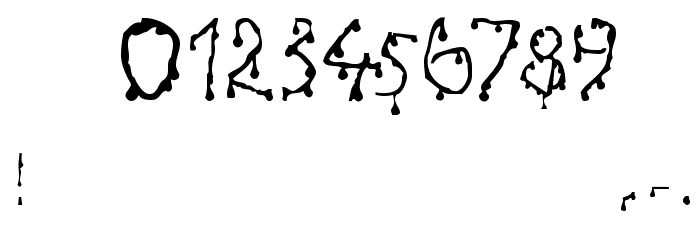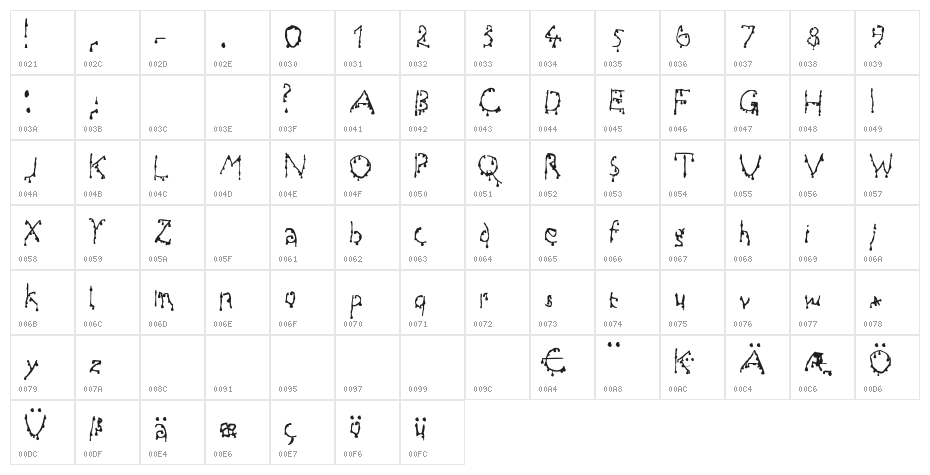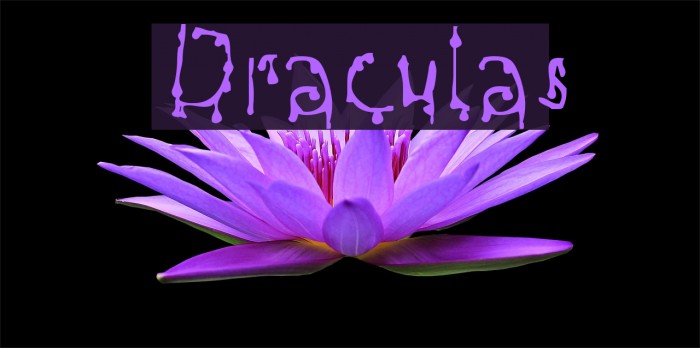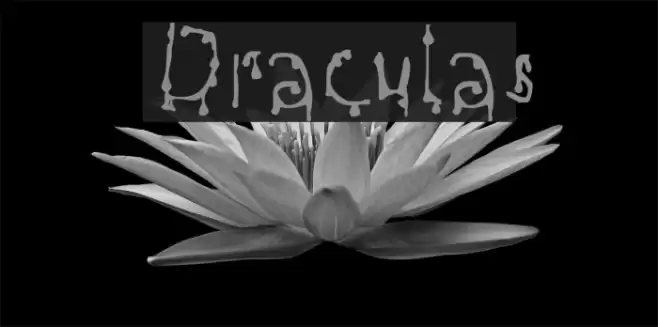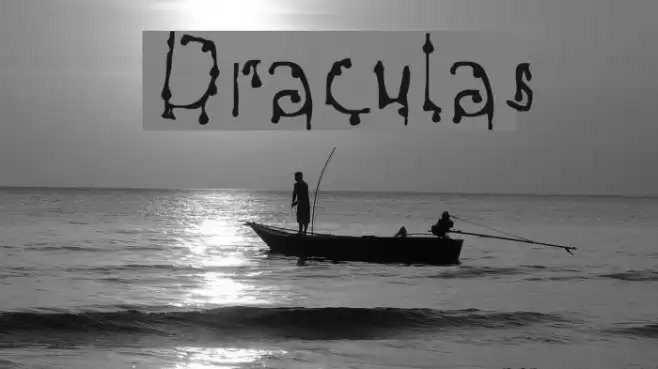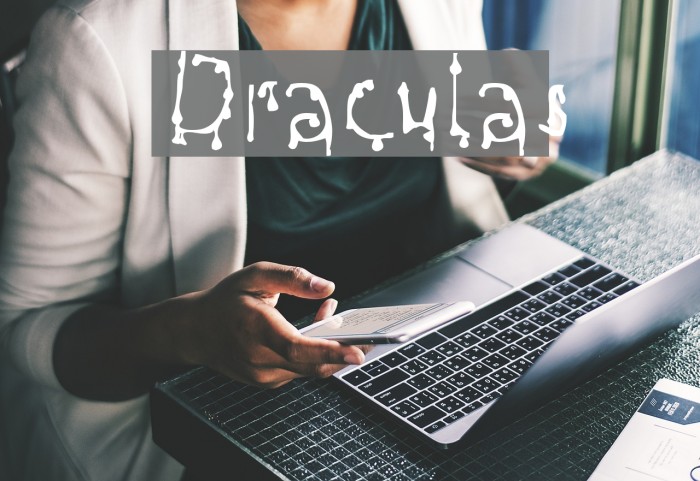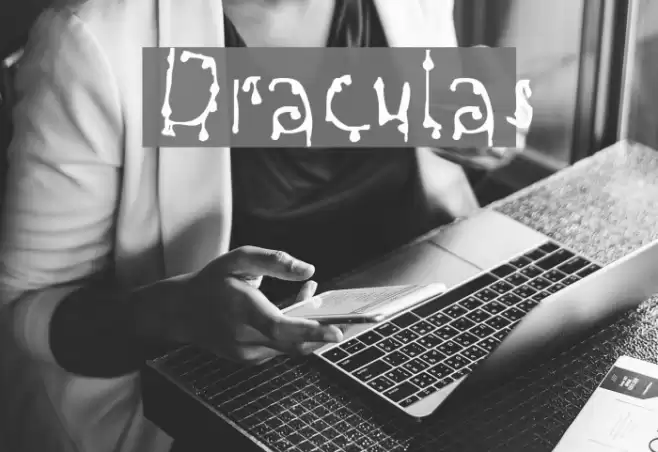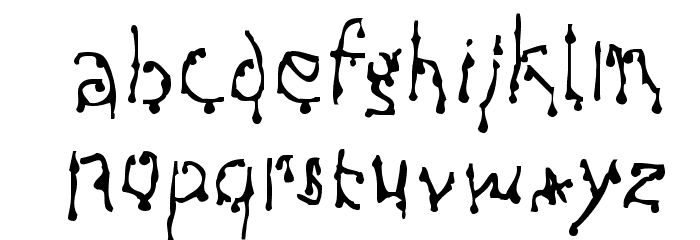
Draculas Font
Draculas Description
This font features a unique, eerie design with letters that appear to be dripping or melting, reminiscent of horror themes. The uppercase and lowercase letters maintain a consistent style, with irregular edges and a playful yet spooky appearance. The numbers and special characters follow the same aesthetic, making the font cohesive and thematic. Its distinct style makes it suitable for Halloween-themed projects, horror movie posters, or any design needing a touch of the macabre.